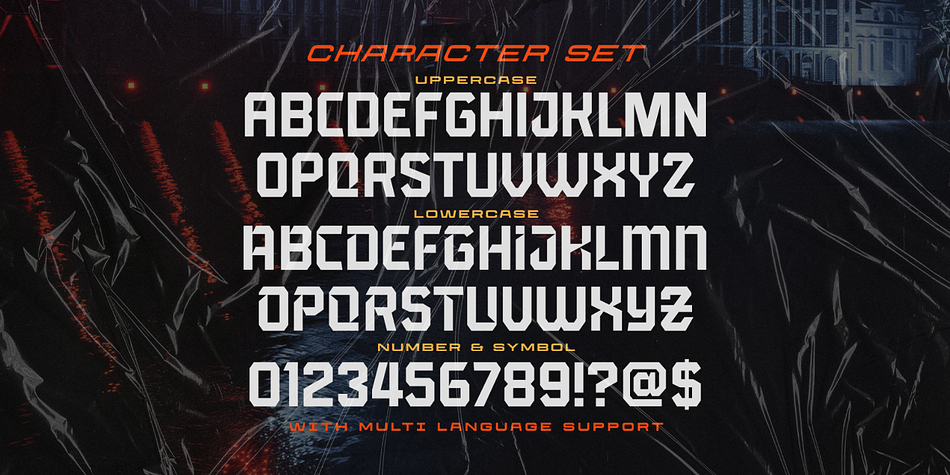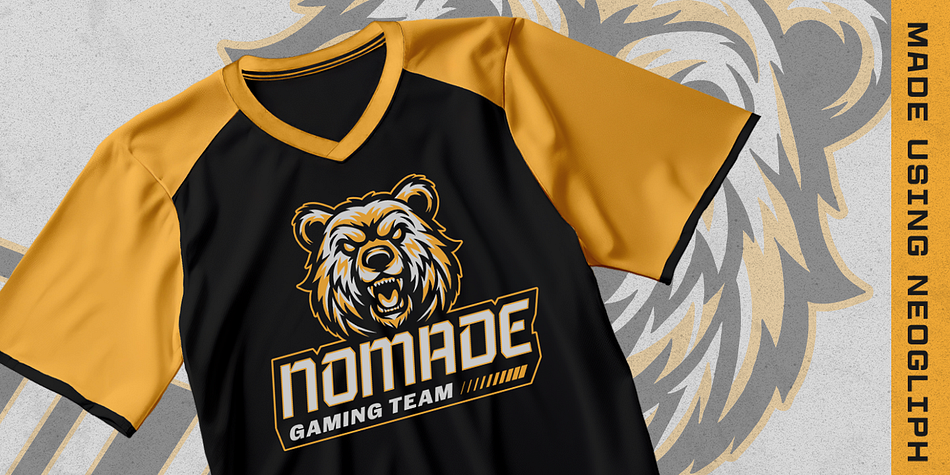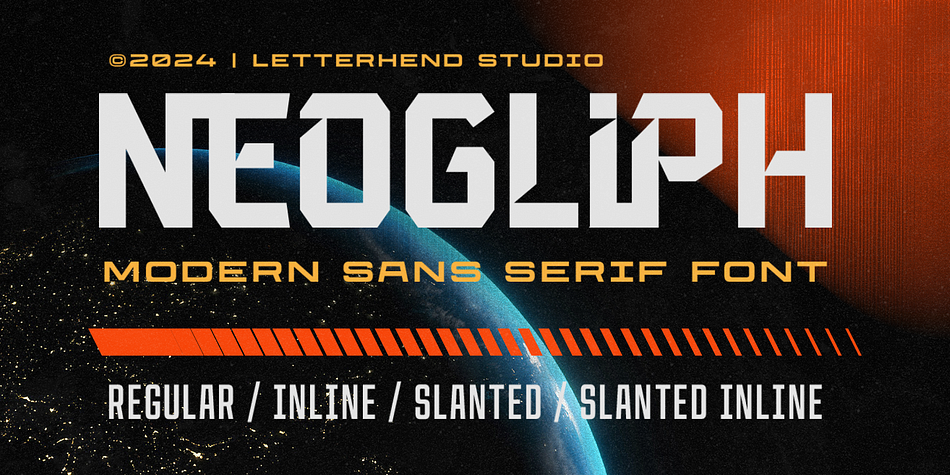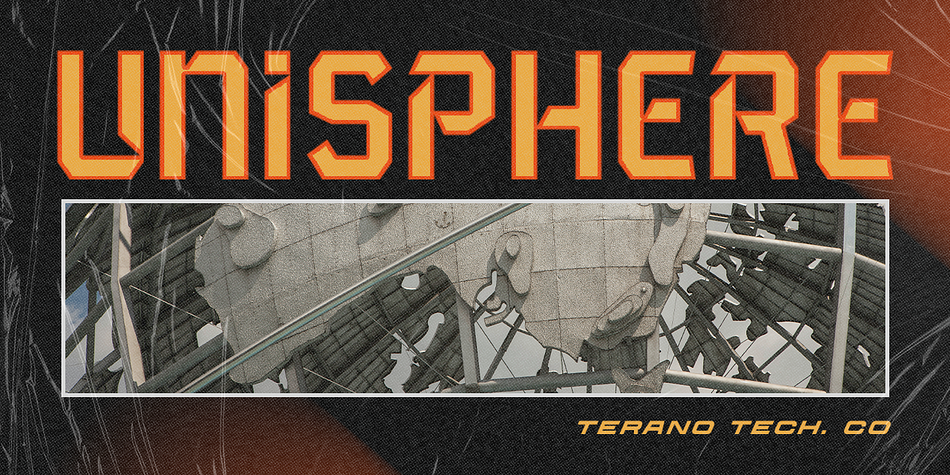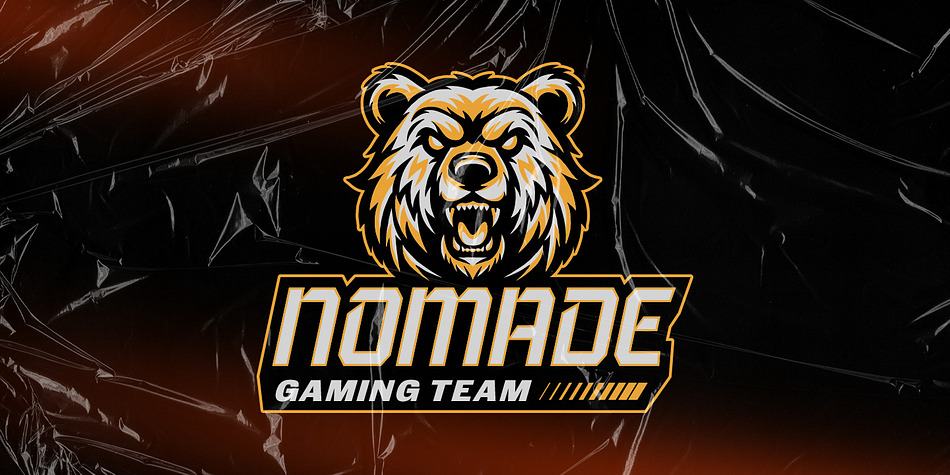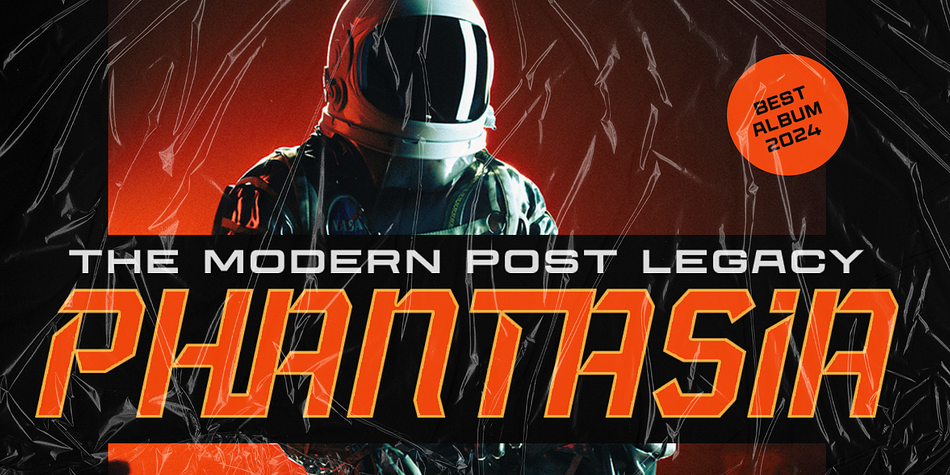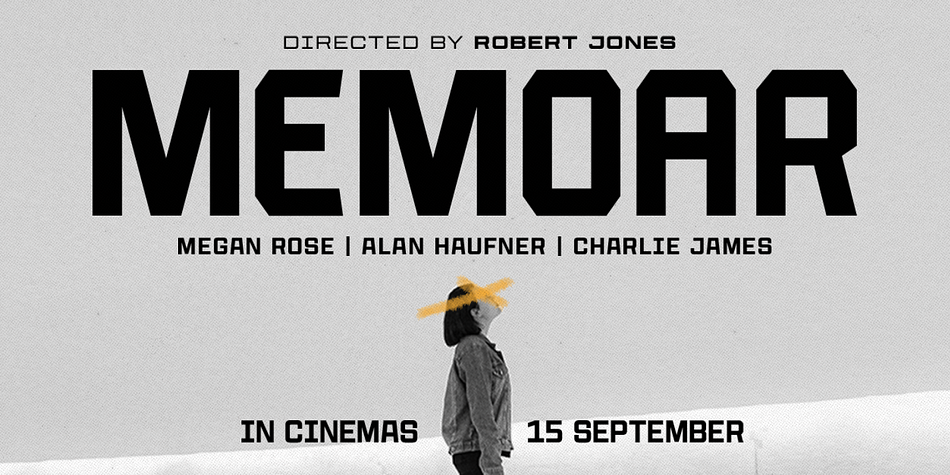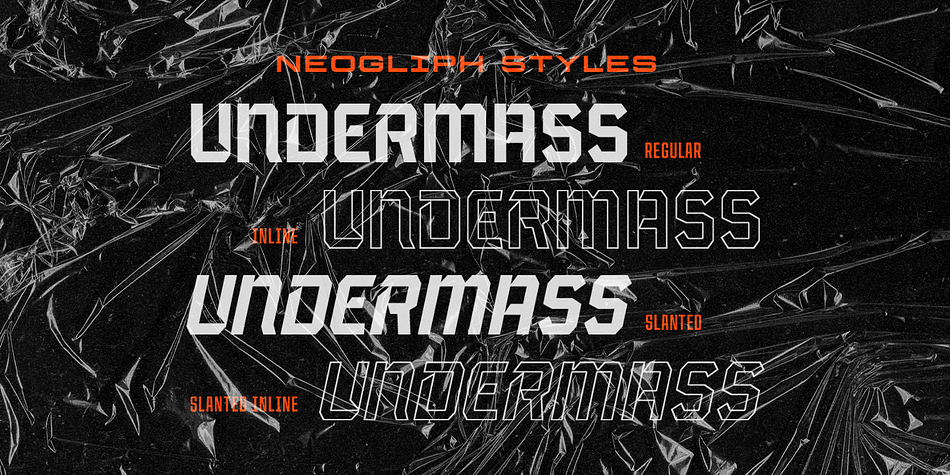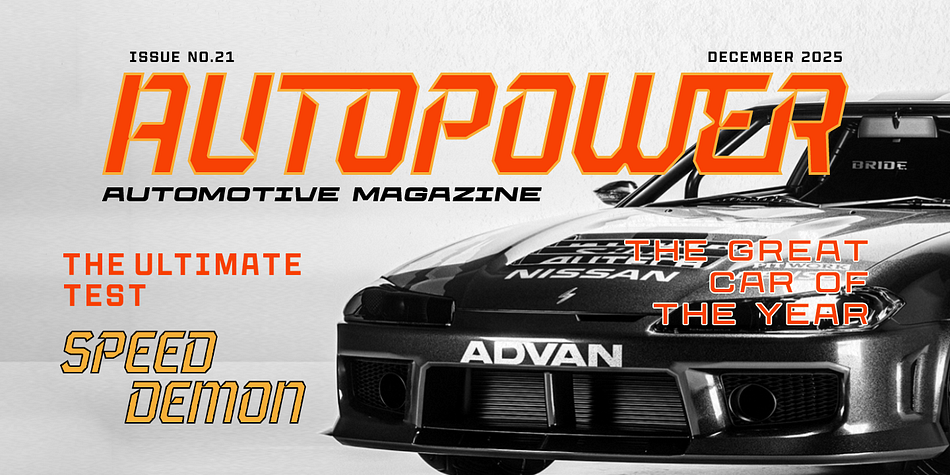
Neogliph
Designed by Hendry Juanda, Neogliph is a display font family. This typeface has four styles and was published by Letterhend Studio.
Neogliph  is the ultimate blend of modernity and cutting-edge design. Its dynamic and futuristic look conveys a sense of precision and high performance.  Offered in Regular, Slanted and Inline styles, Neogliph makes your text a true icon of progress and futuristic vision.
This font perfectly made to be applied especially in logo, and the other various formal forms such as invitations, labels, logos, magazines, books, greeting / wedding cards, packaging, fashion, make up, stationery, novels, labels or any type of advertising purpose.